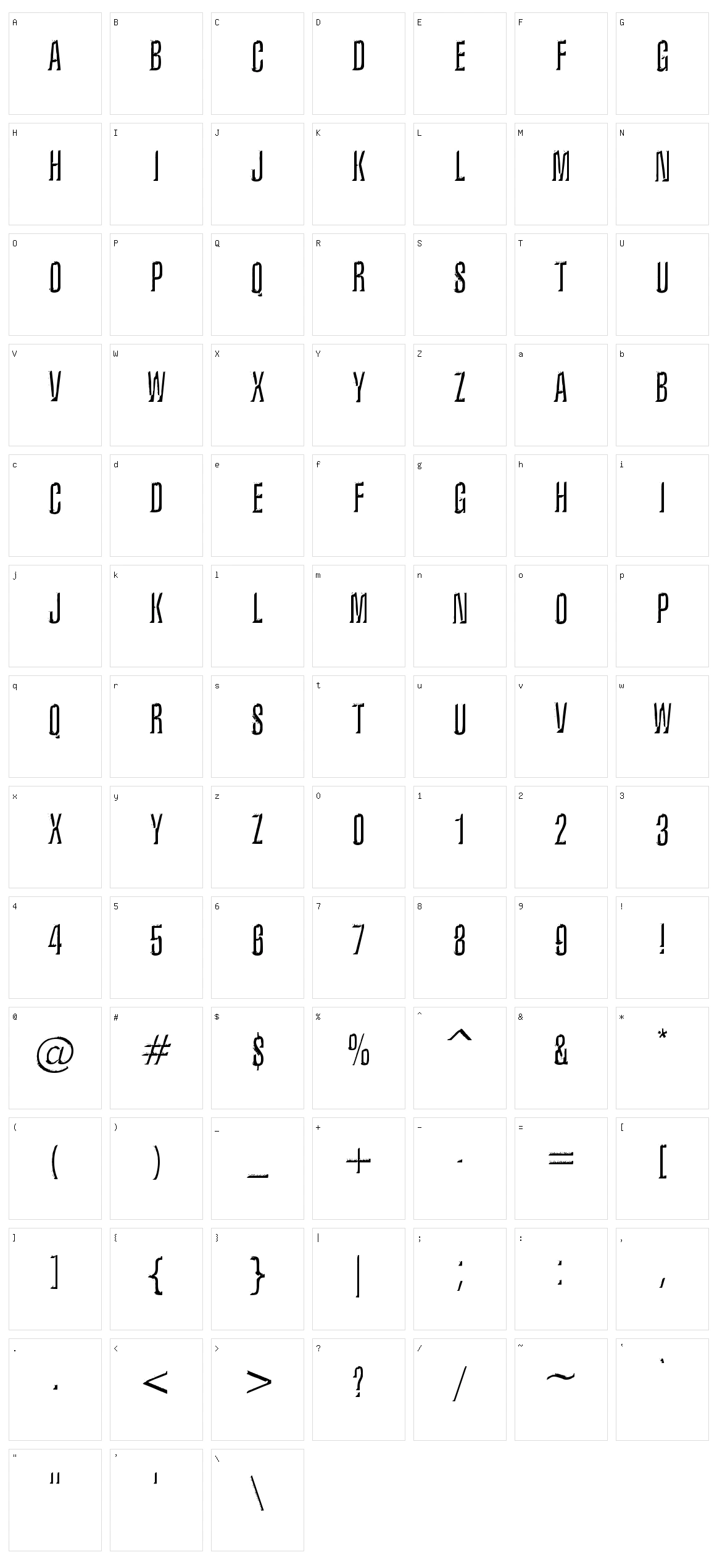
IRON LUNG
A TrueType Font by S. John Ross
This font's sort of a hybrid, with elements of both a stressed font and an engraved font, with the end result standing in for crudely stamped letters from a plate of metal. Its an all-caps* font with a full keyboard set and the usual extras I tend to toss in (a few fractions, smart-quotes, dashes and whatnot). Enjoy.
*The commercial version of this font includes an additional set of lowercase characters.